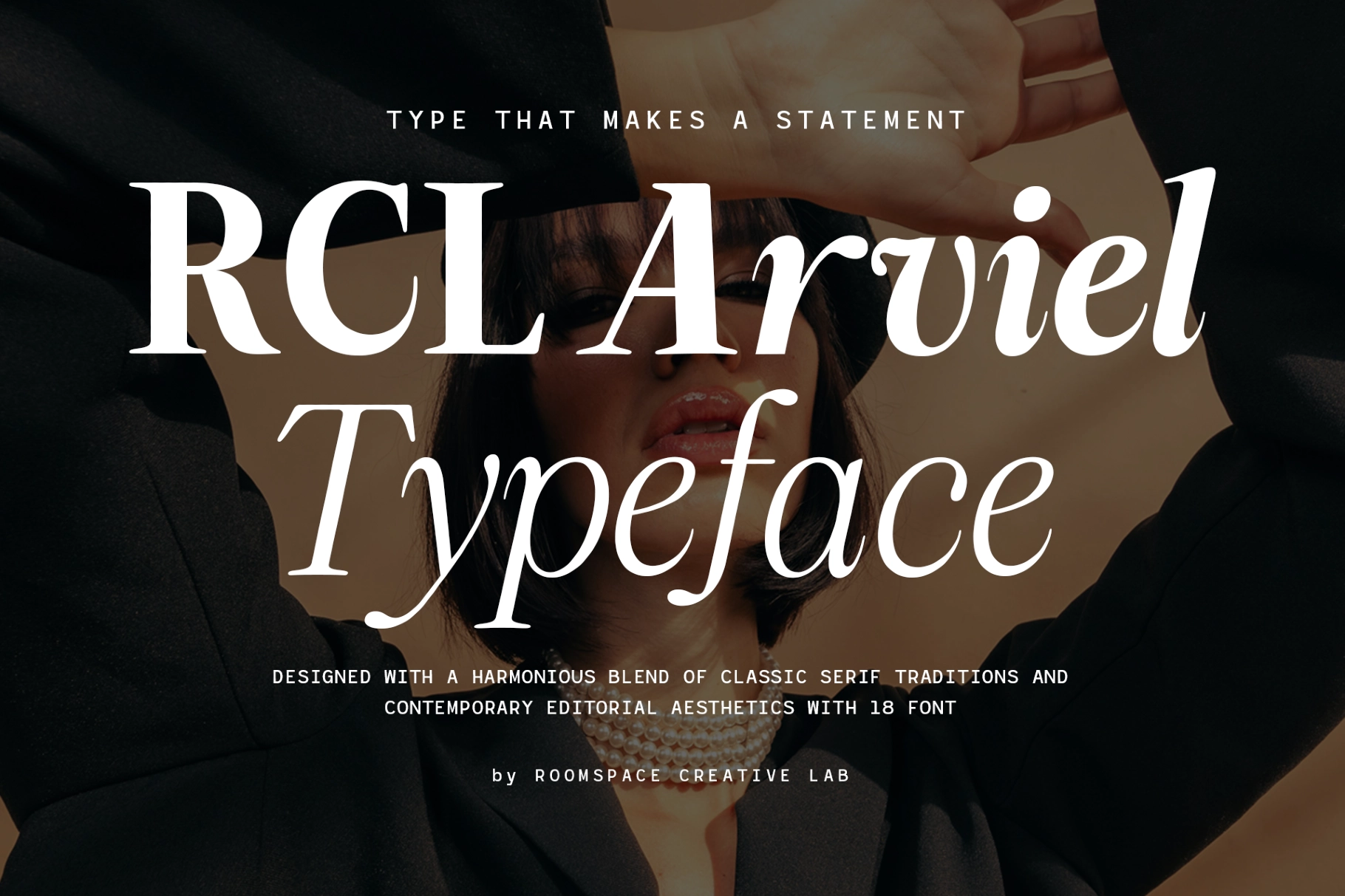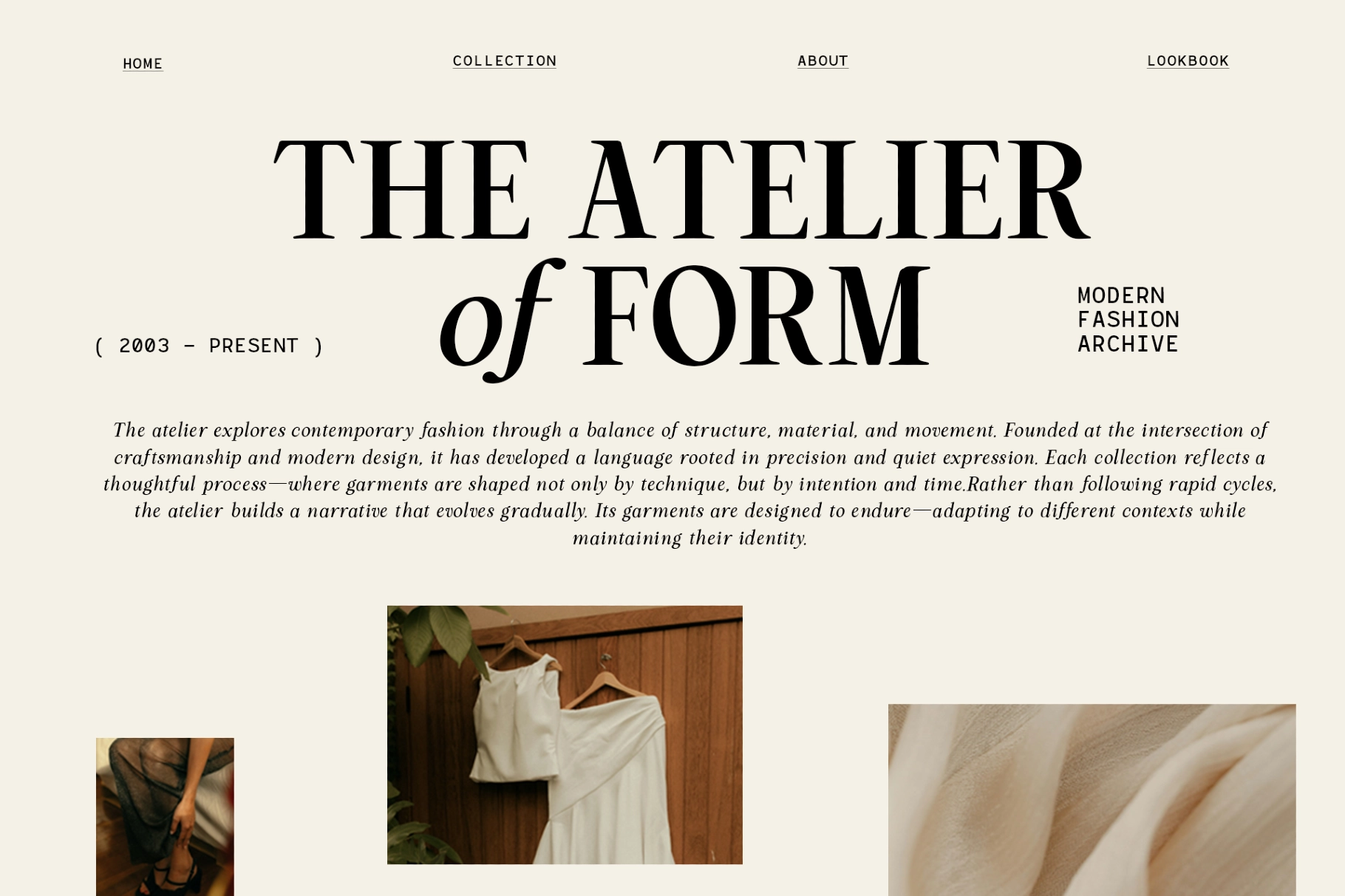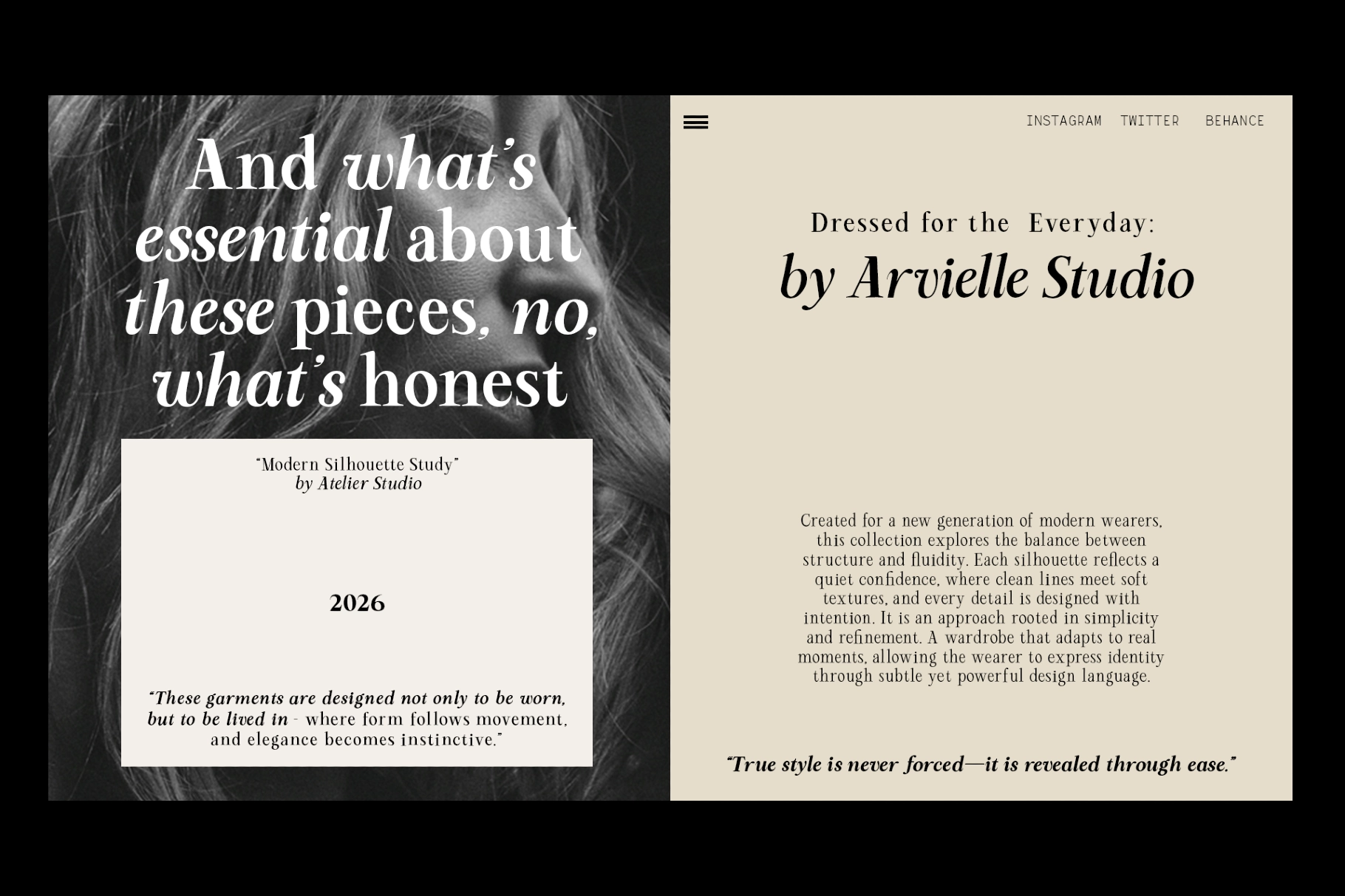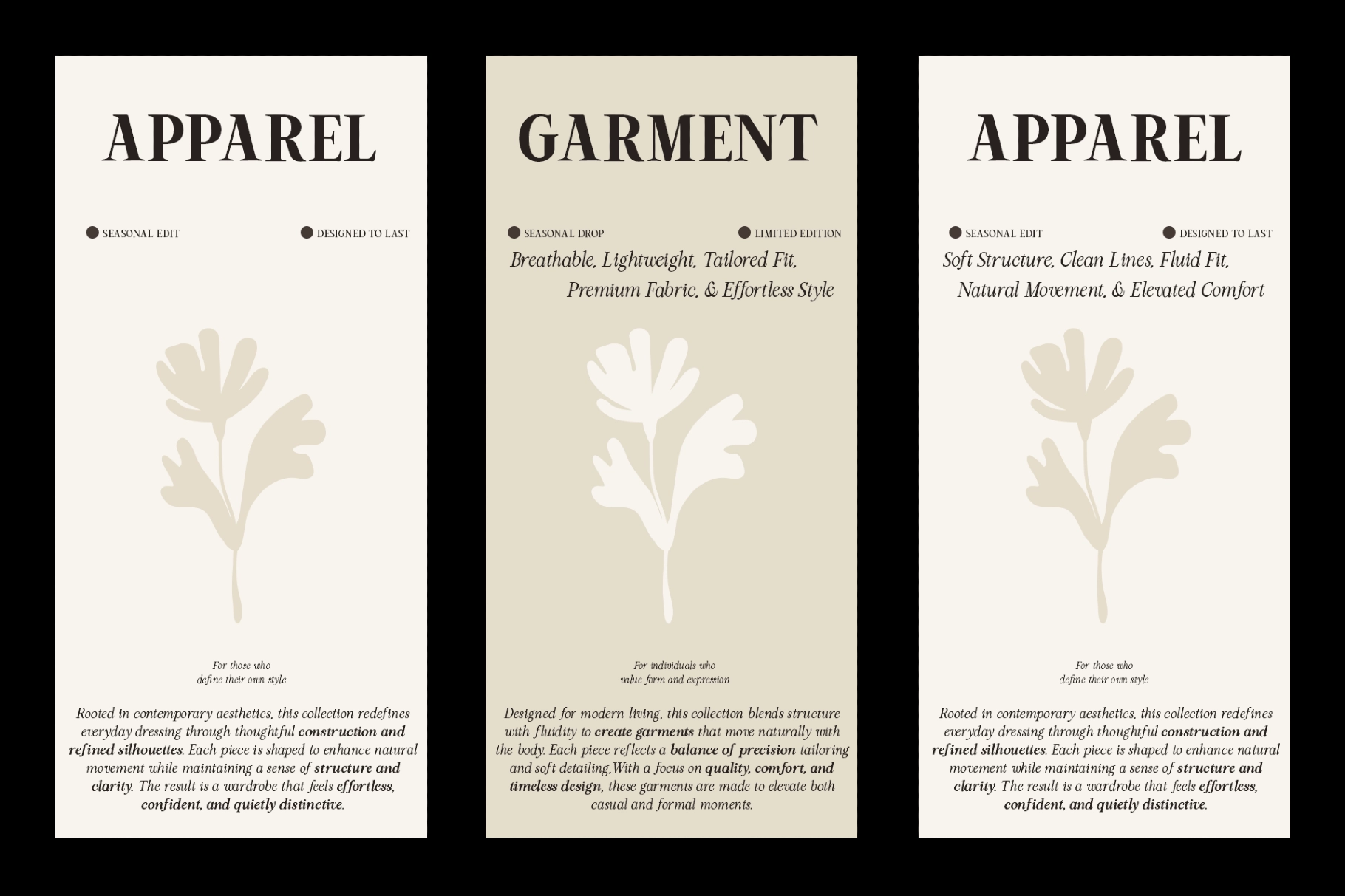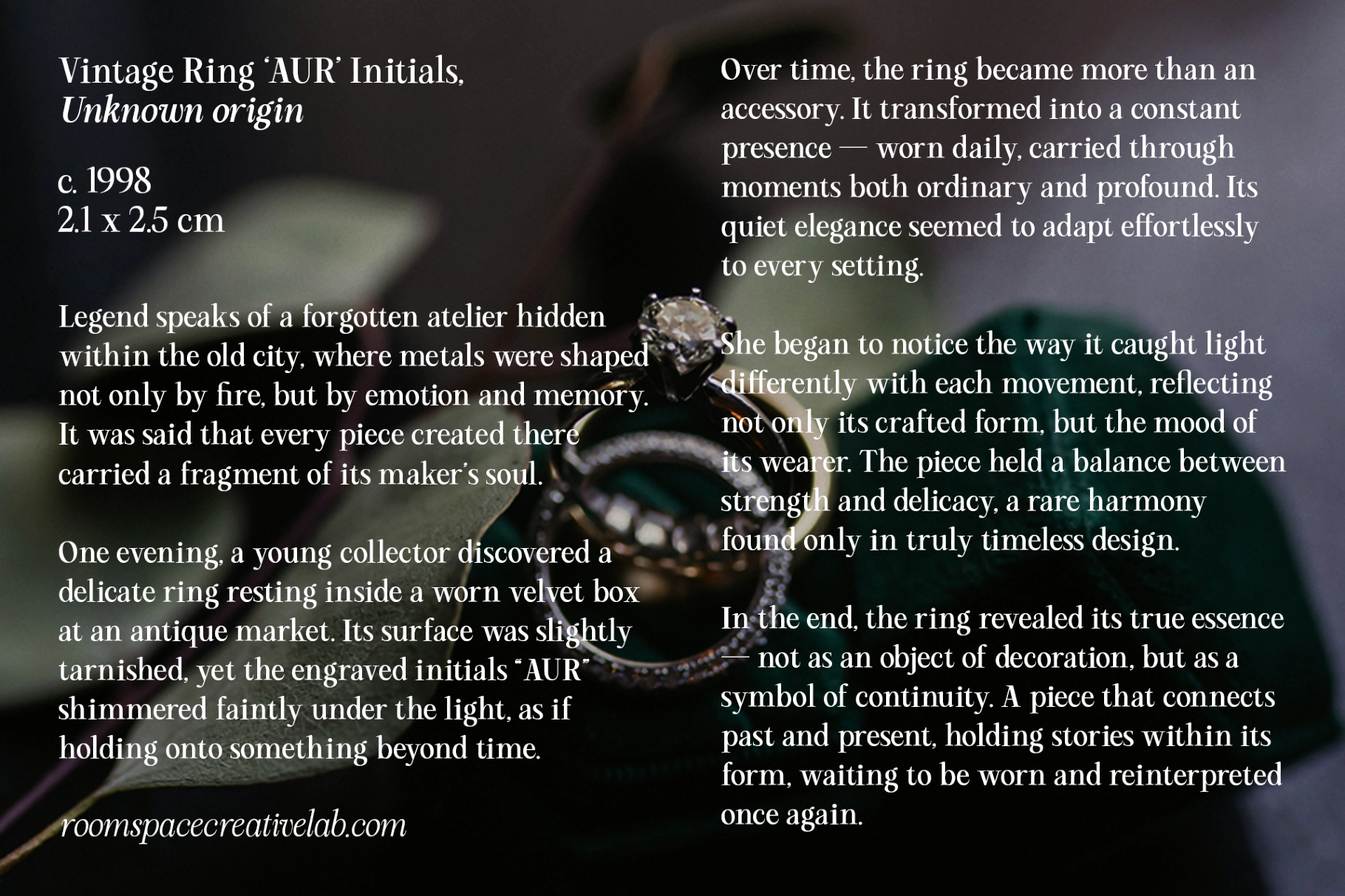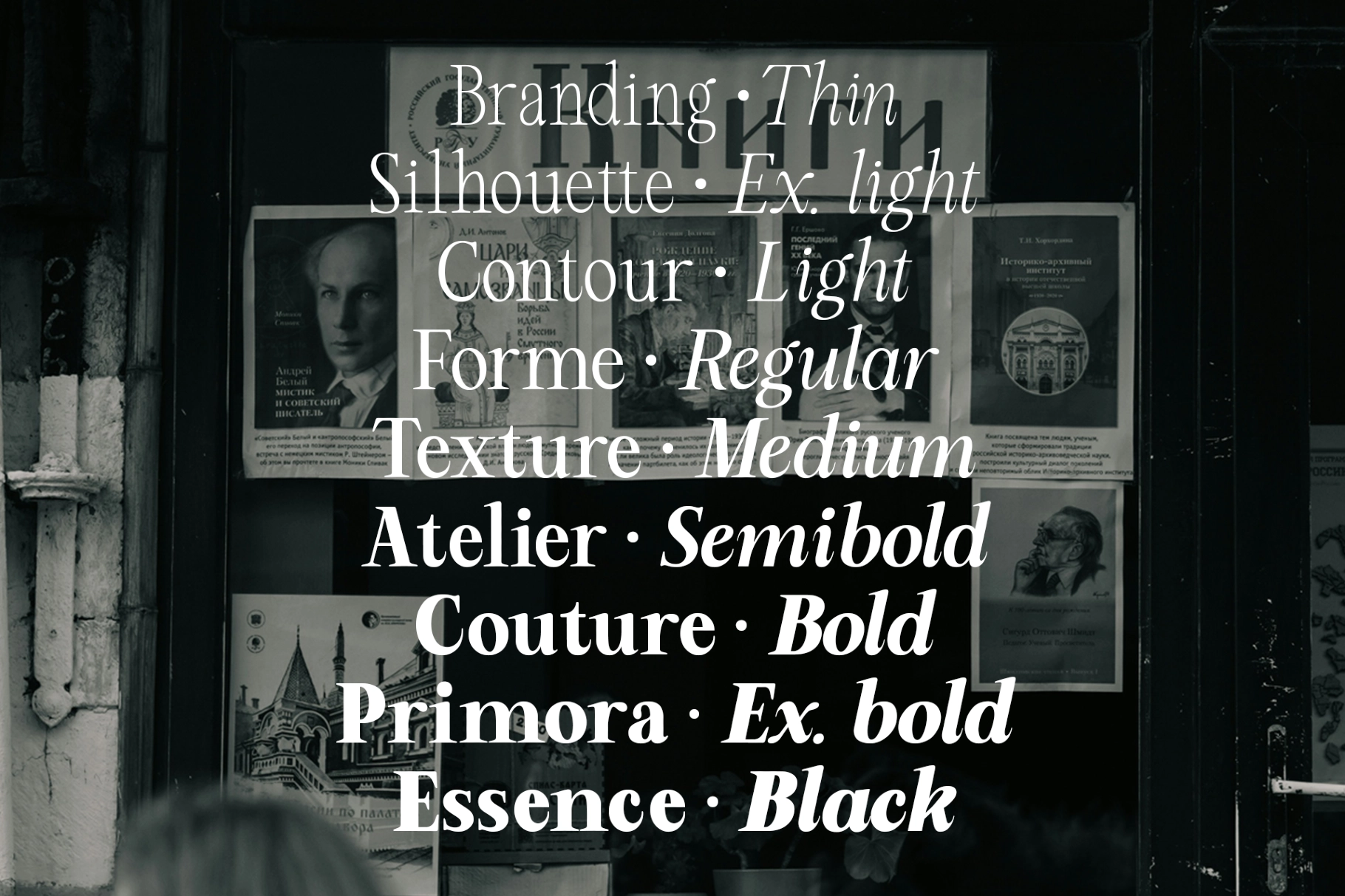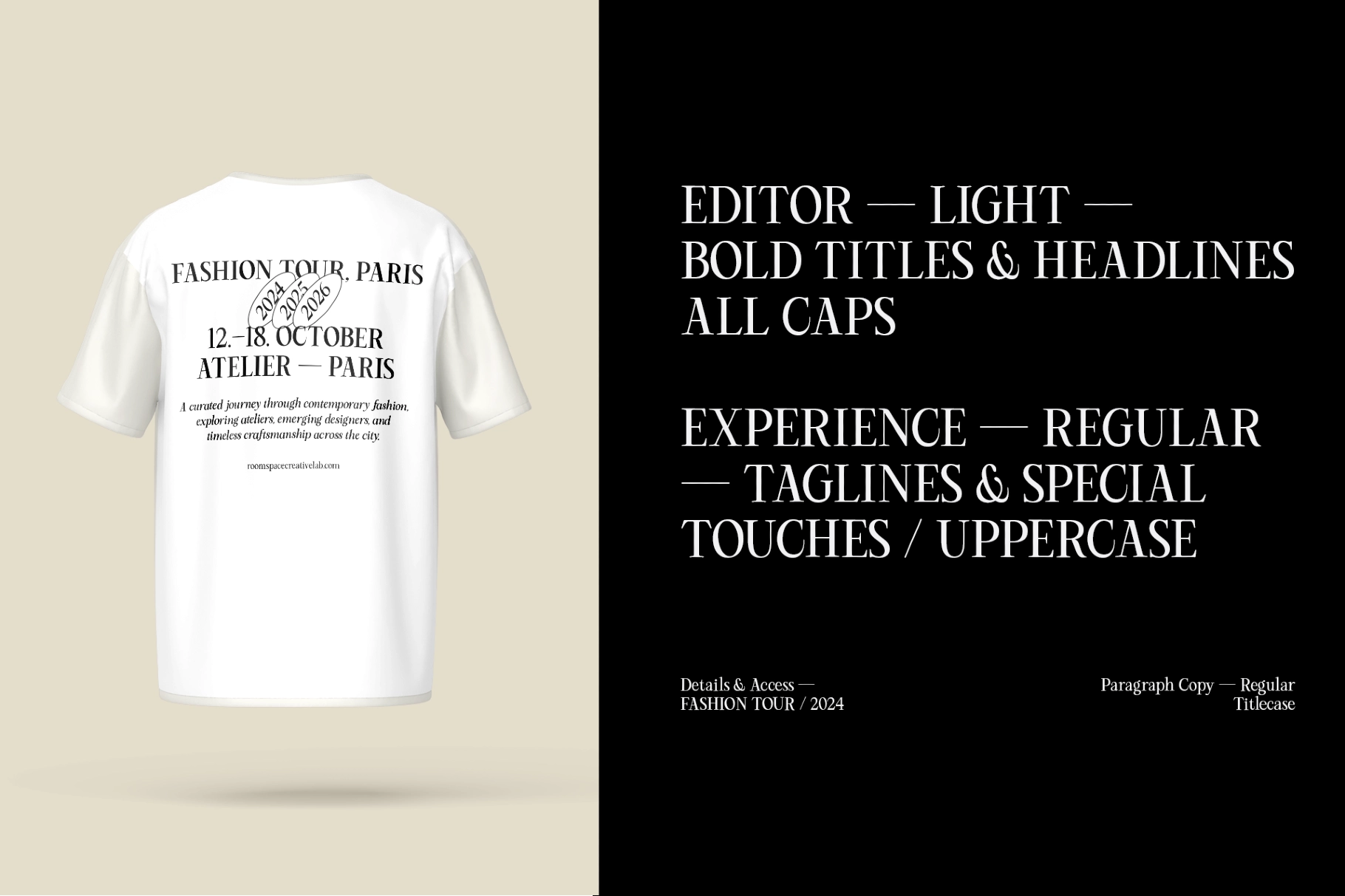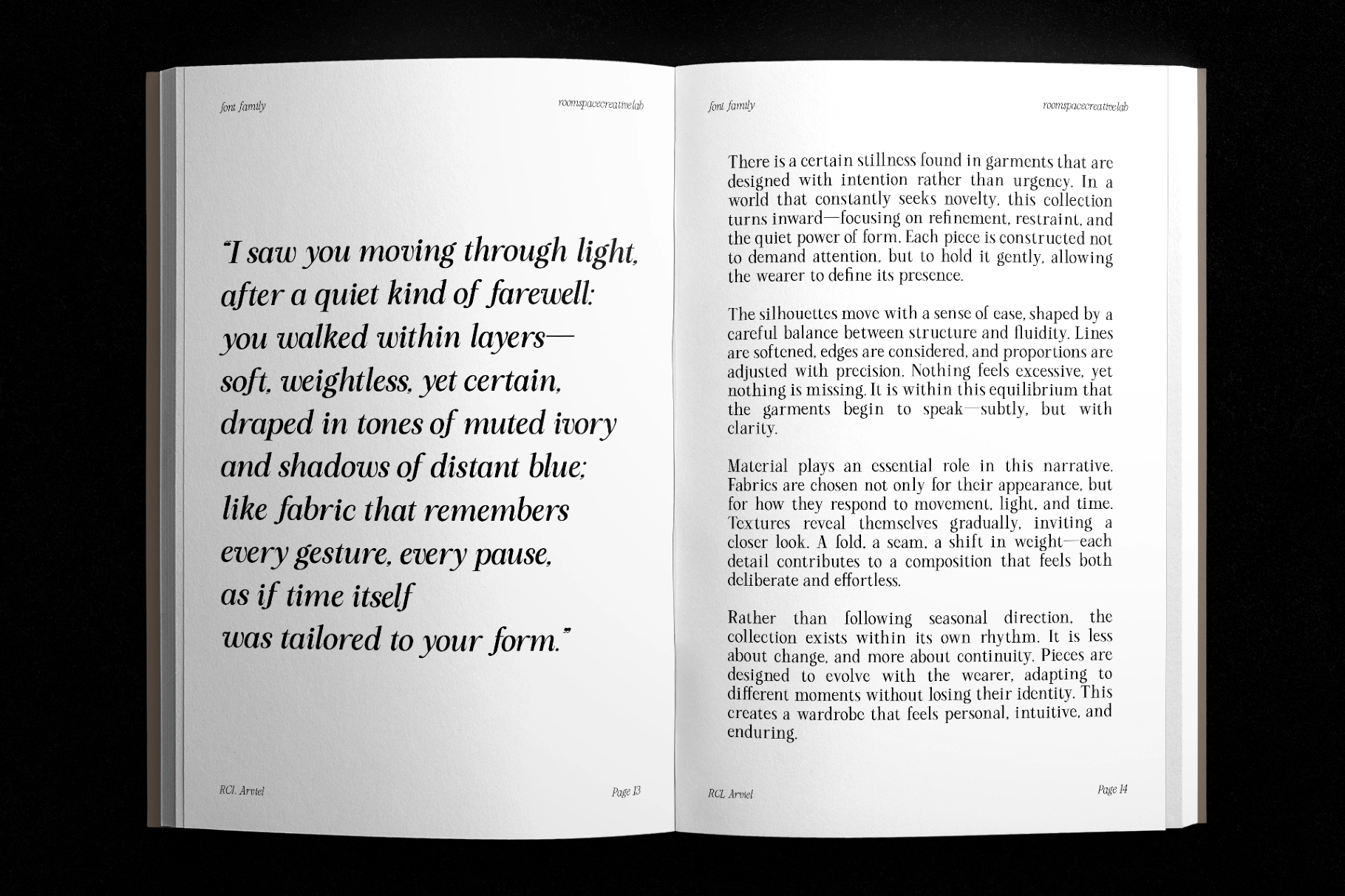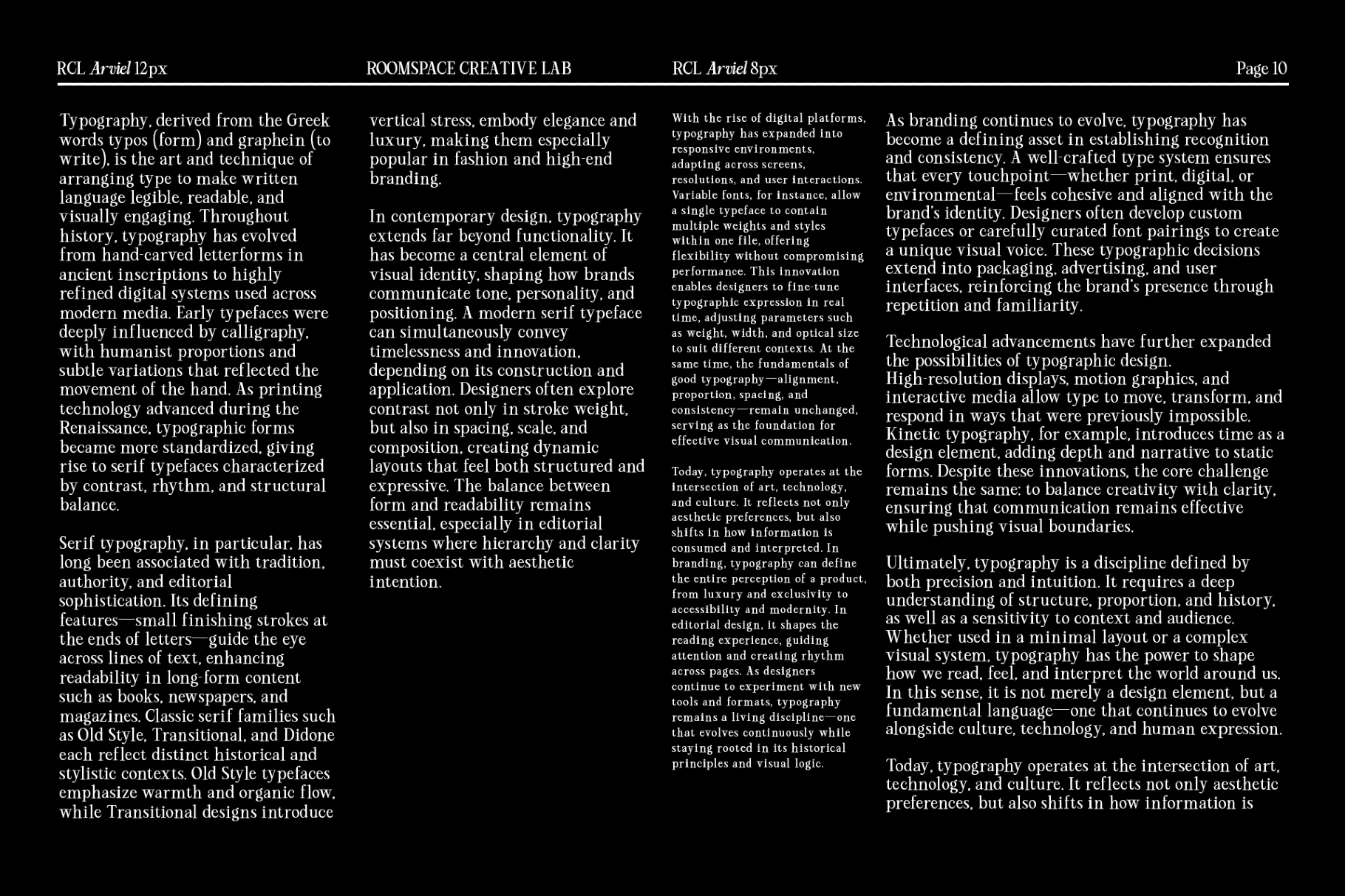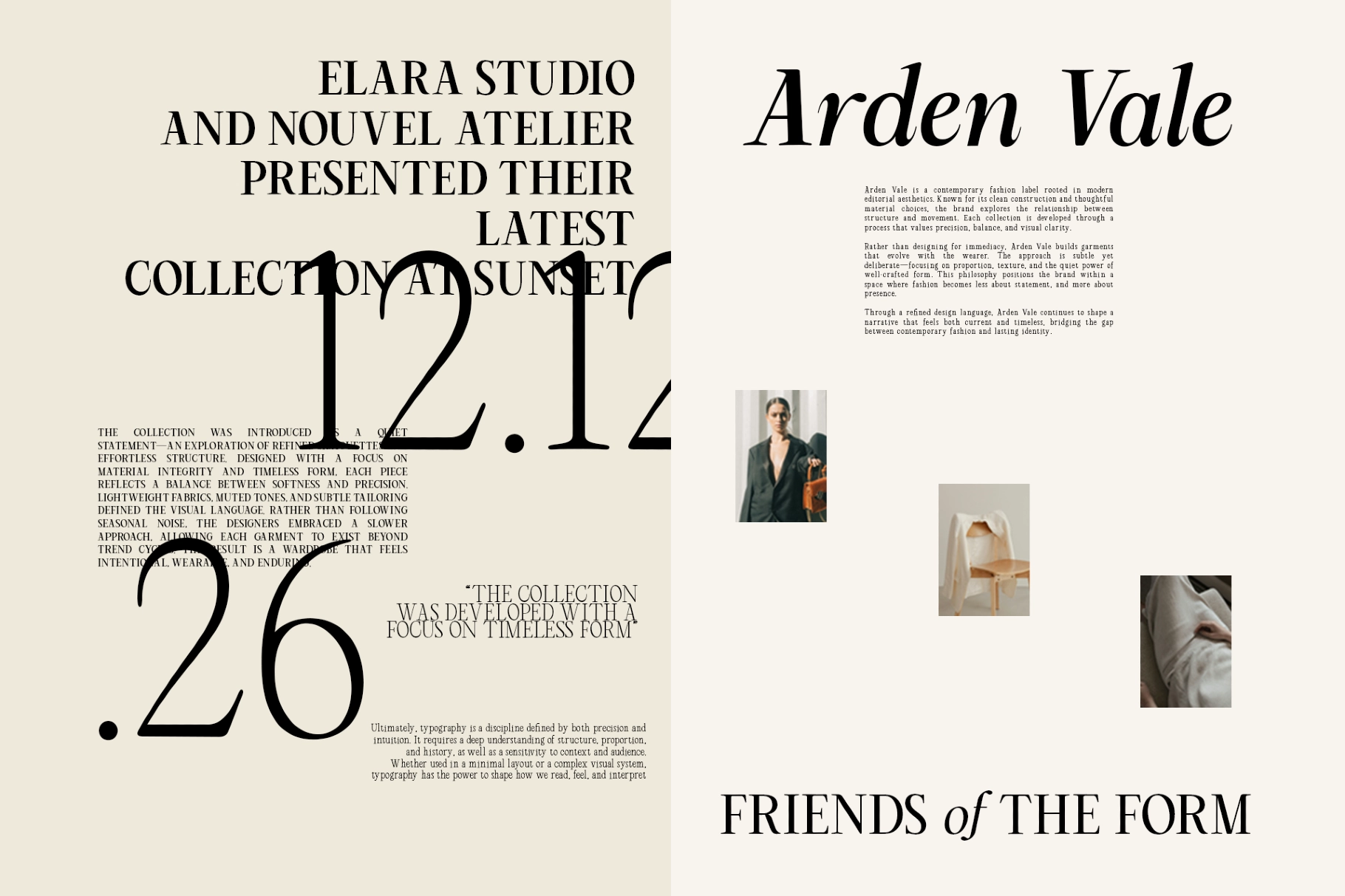
RCL Arviel – Modern Editorial Serif Font Family
This editorial serif family has high contrast, sculpted terminals, and a polished fashion-house attitude without losing its sharper edge. Its generous curves and crisp serifs give headlines a poised rhythm, while the wide weight range makes it useful for both quiet text hierarchy and oversized display work.
Arviel is made for luxury branding, fashion campaigns, magazine covers, lookbooks, logo marks, boutique packaging, art direction decks, portfolio websites, social media visuals, invitation design, gallery identities, and digital campaigns with a cultured point of view. It has the kind of presence that knows when to enter the room and when to let the kerning do the talking.
• 18 font weights: Thin to Bold
• High-contrast serif design